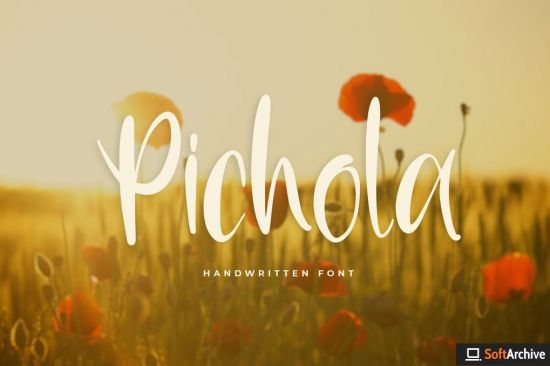
Pichola is an elegant and classy handwritten font. Work great for any design needs: logo, branding, modern advertising design, logos, poster quote, book/cover Title, editorial design, website/blog, card, custom mug, pillow, t-shirts, and any hand-lettered needs.